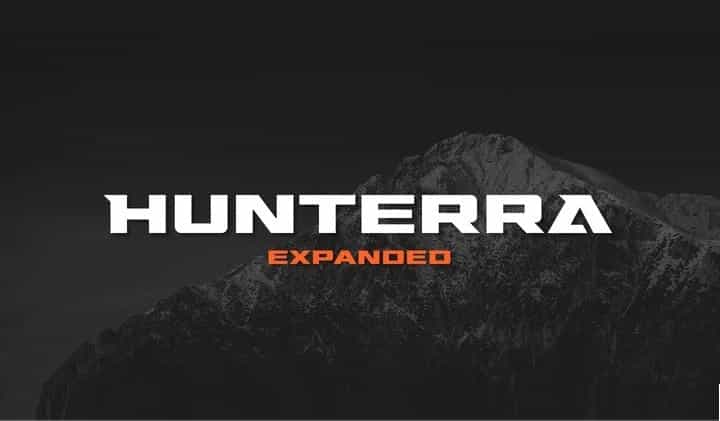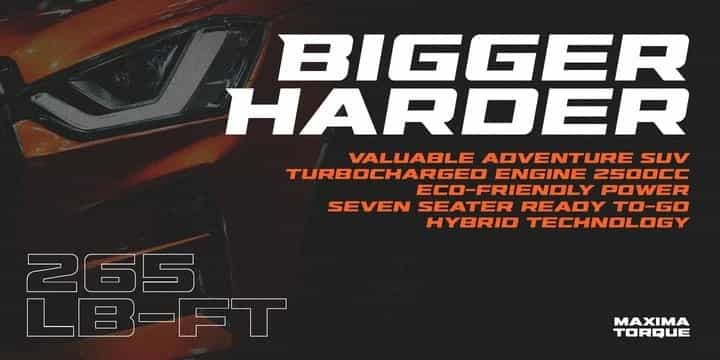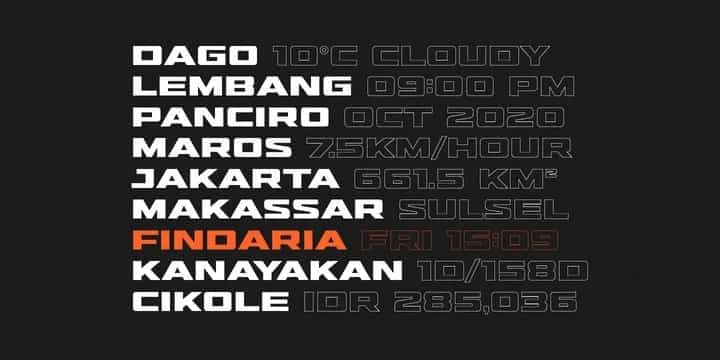
Hunterra Display Font is a fresh font created by Variatype. Simple, clean yet bold and modern, the multidirectional block font of Hunterra Display Font makes this font something to watch out for. Font is a strong type font basically created for branding and identity purposes,